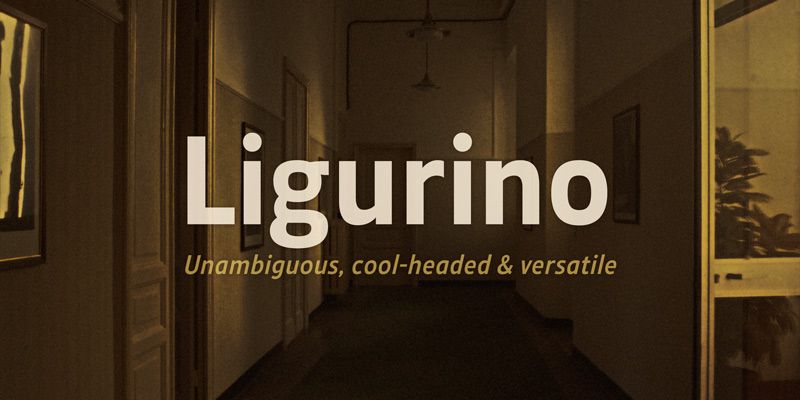
Ligurino specimen
Ligurino
Ligurino is a levelheaded sans-serif typeface. Its uncluttered design is canny and placid, maximizing readability. An austere Q can be accessed using the OpenType stylistic alternates feature.